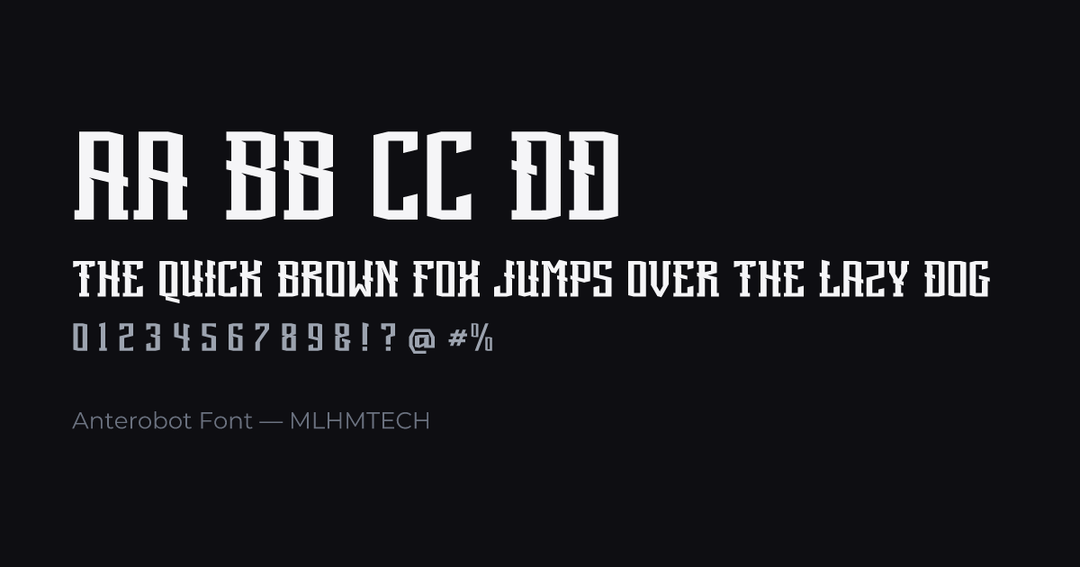
Anterobot Font
Anterobot is a modern display font with a bold, geometric style. Ideal for logos, posters, and branding that need a contemporary edge.
Anterobot is a handpicked display font that brings a fresh, modern look to your creative projects. Its clean lines and geometric shapes make it versatile for various design applications, from logos to editorial layouts.